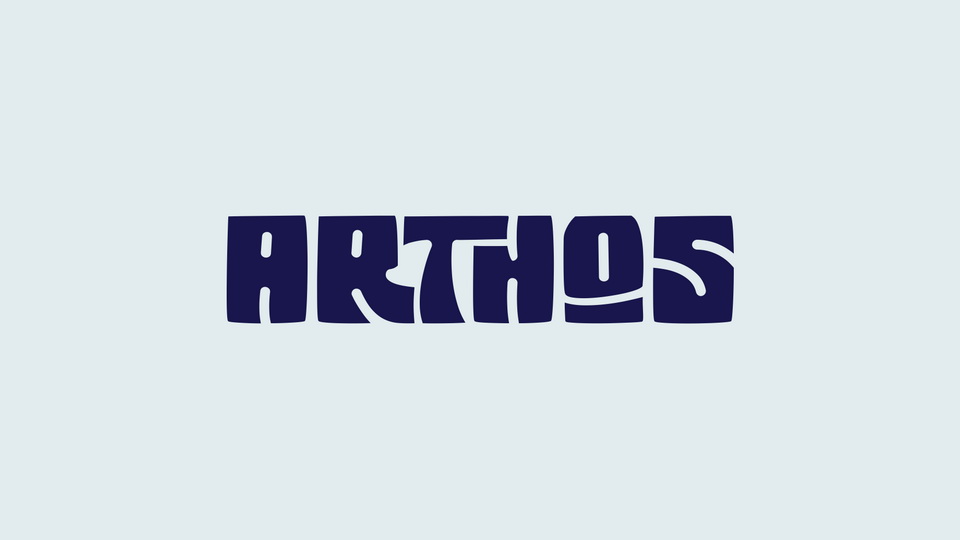
Download Arthos font, a flowing energy typeface. The curvy line and sharp nodes combination, gives this font family a humanist touch with punch of energy.